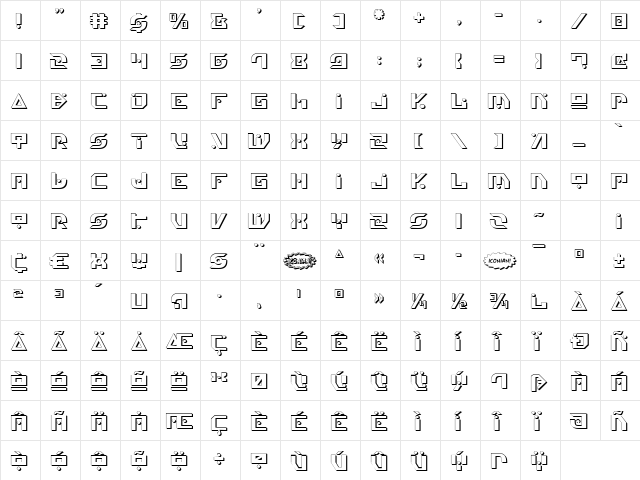
Generation Nth Shadow Shadow
Design Context for Generation Nth Shadow Typeface
Generation Nth Shadow brings ornamental detail and strong personality to headlines and identities, where visual impact matters more than quiet functionality.
Font Pairing: Pair with a clean neutral sans-serif for body copy to let Generation Nth Shadow's character lead without overwhelming the composition.
Pro Tip: Use Generation Nth Shadow exclusively at display sizes — it was designed to be seen, not read at length. Let a neutral companion handle body copy.